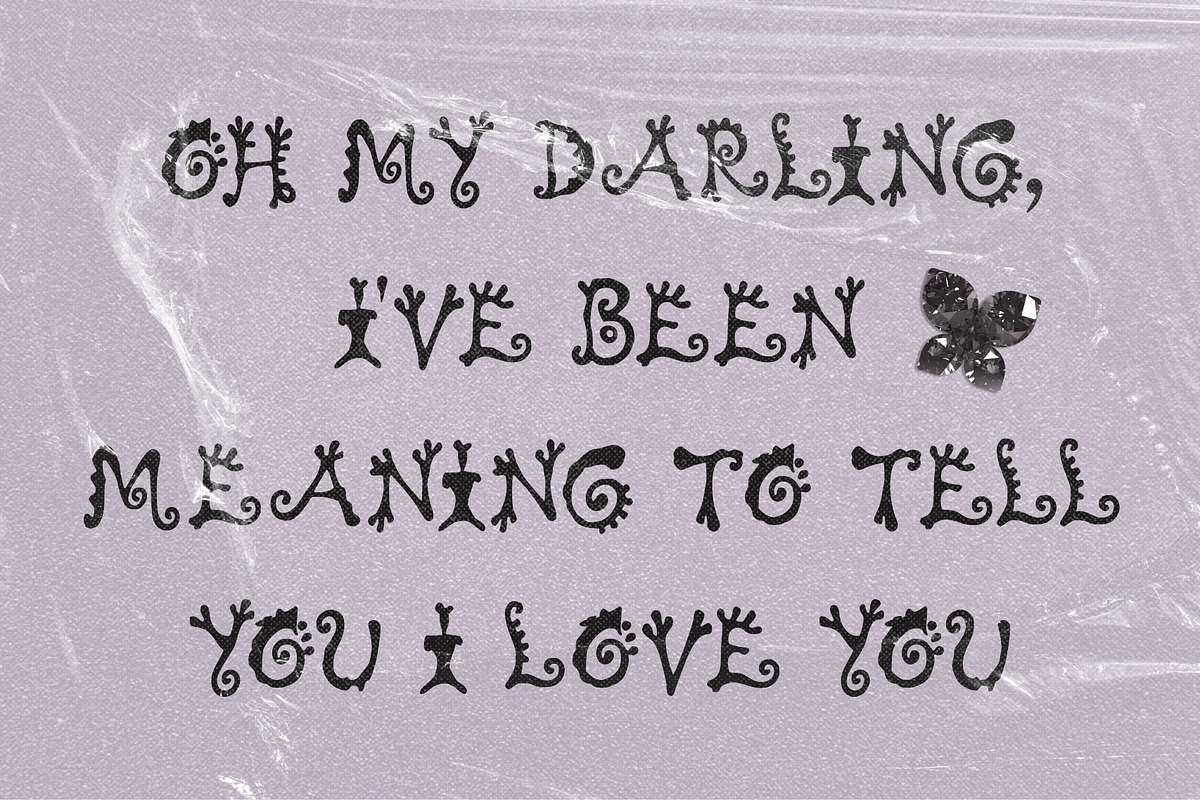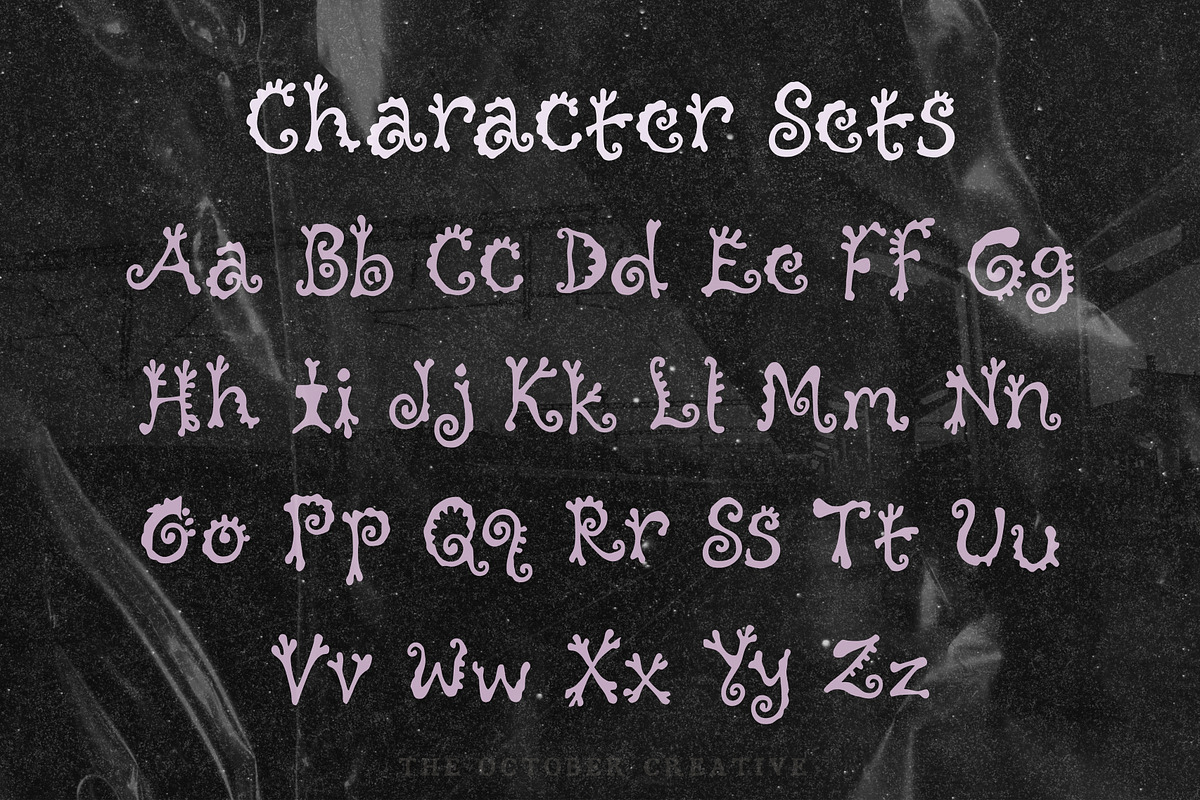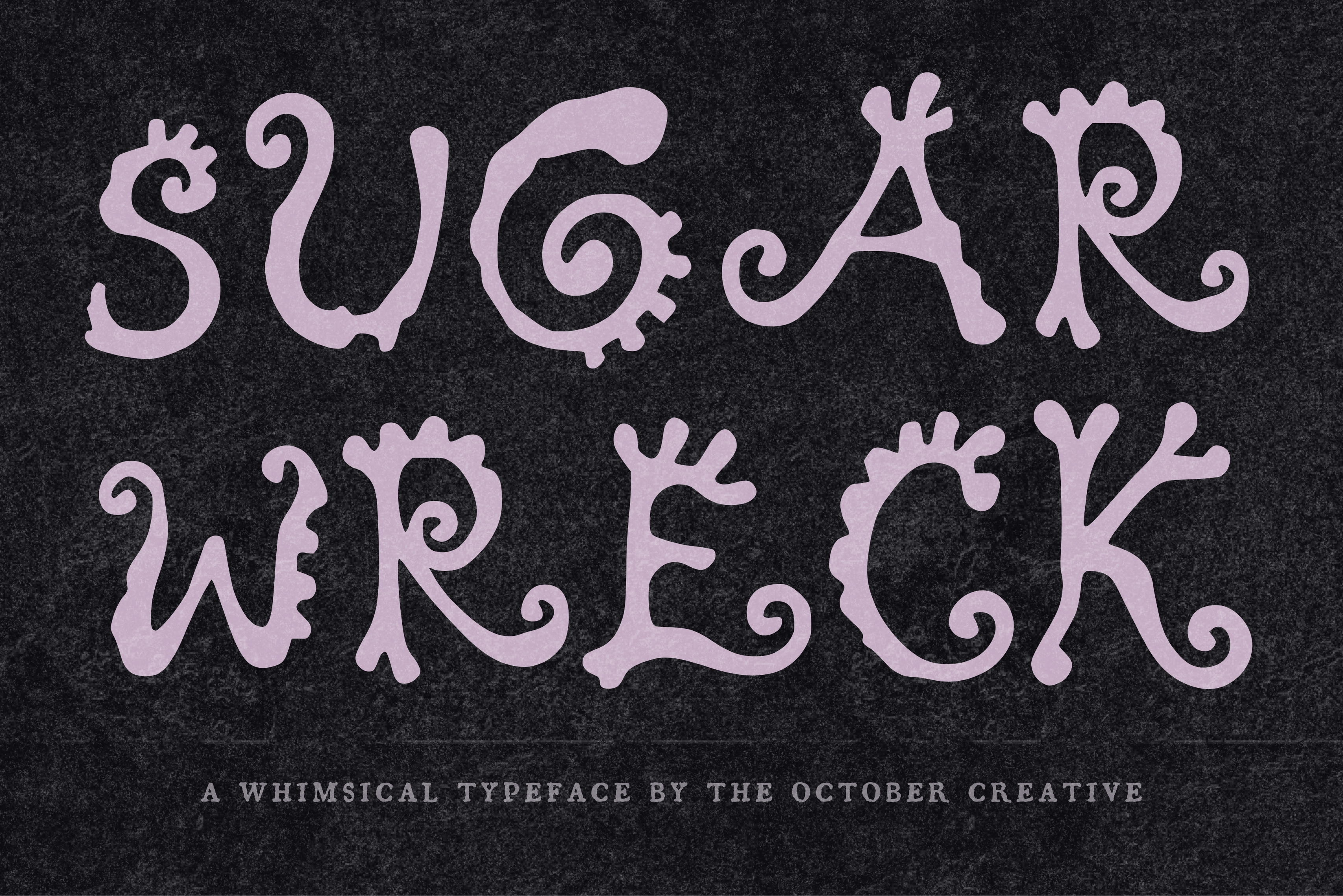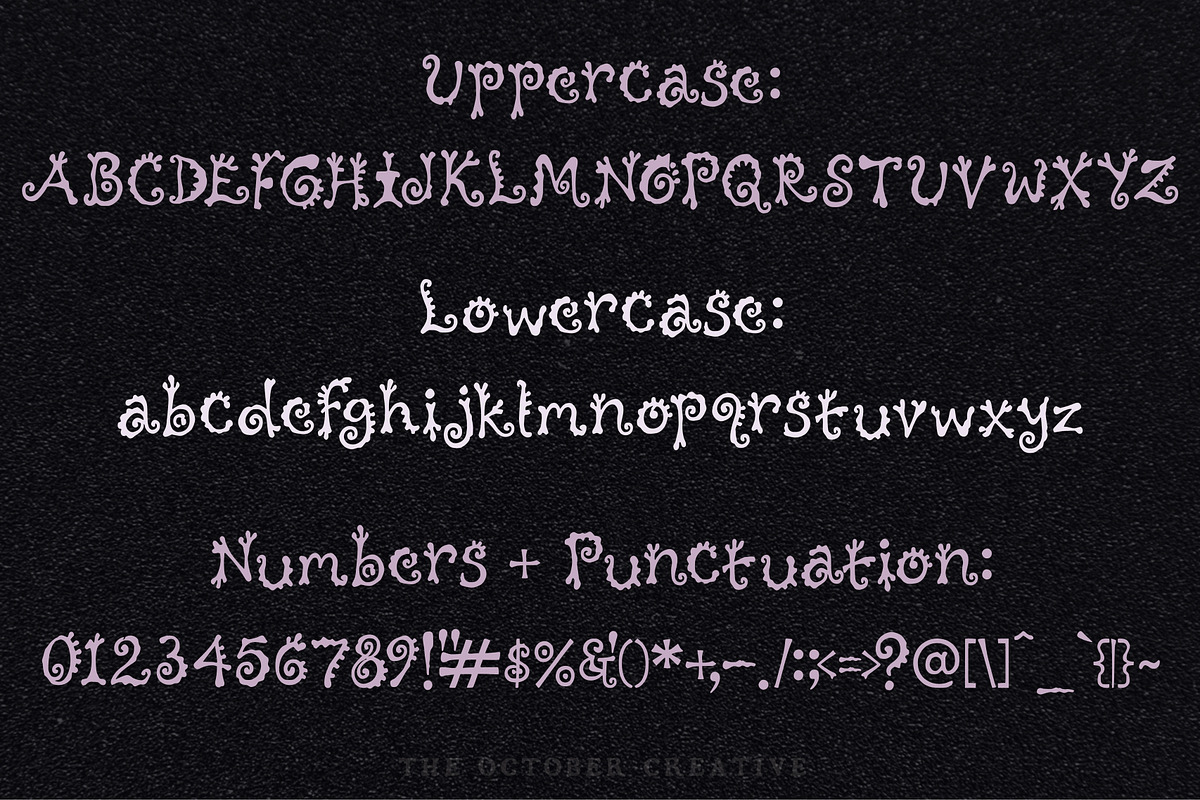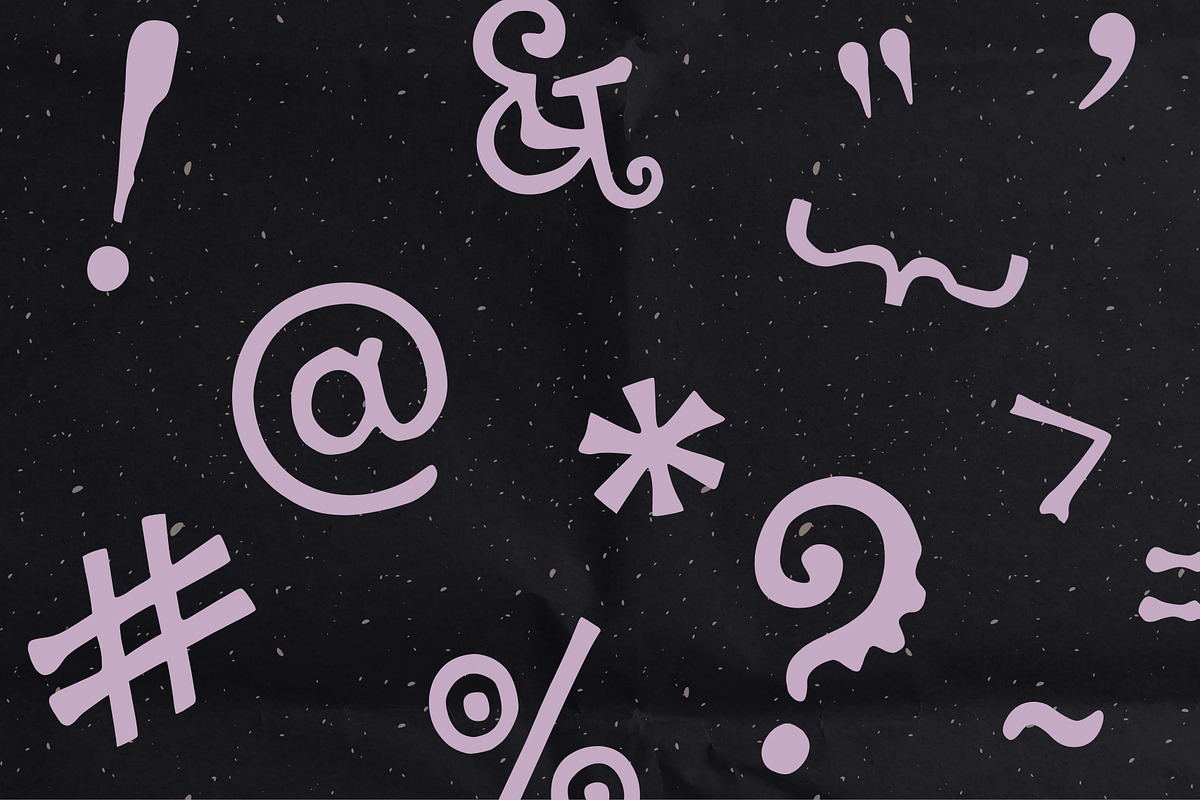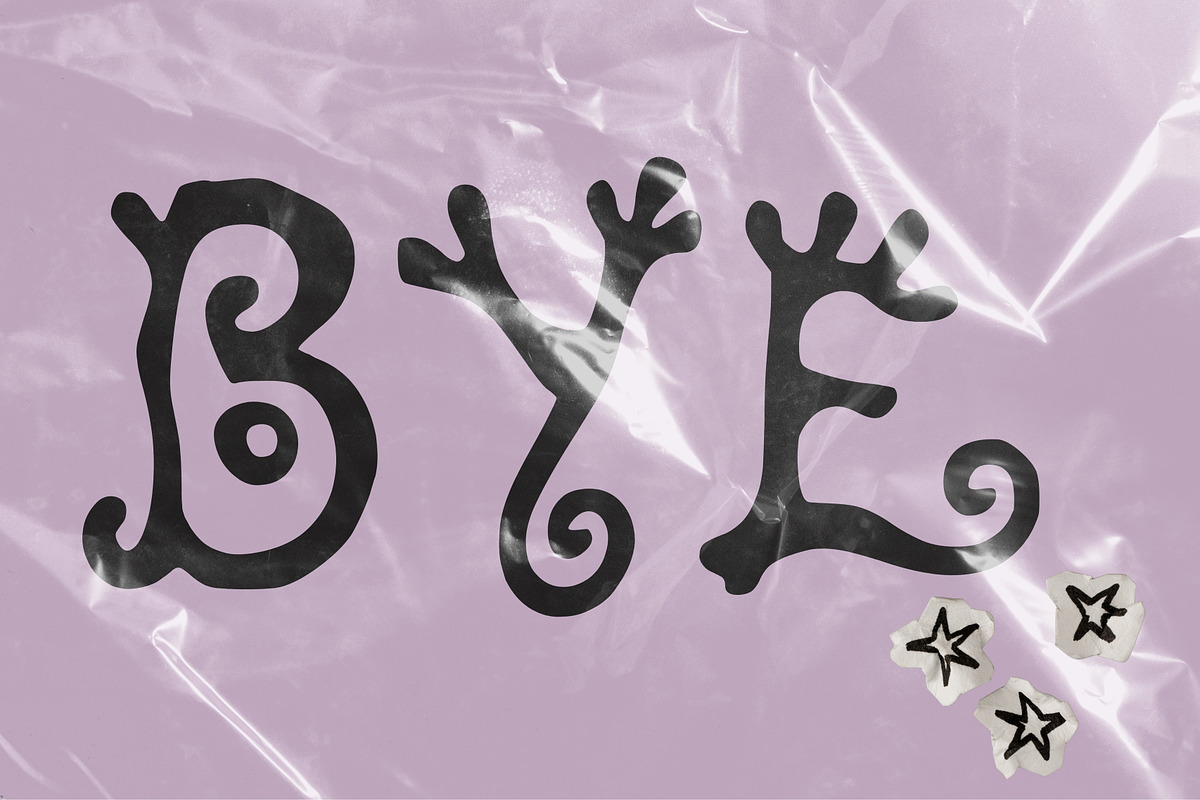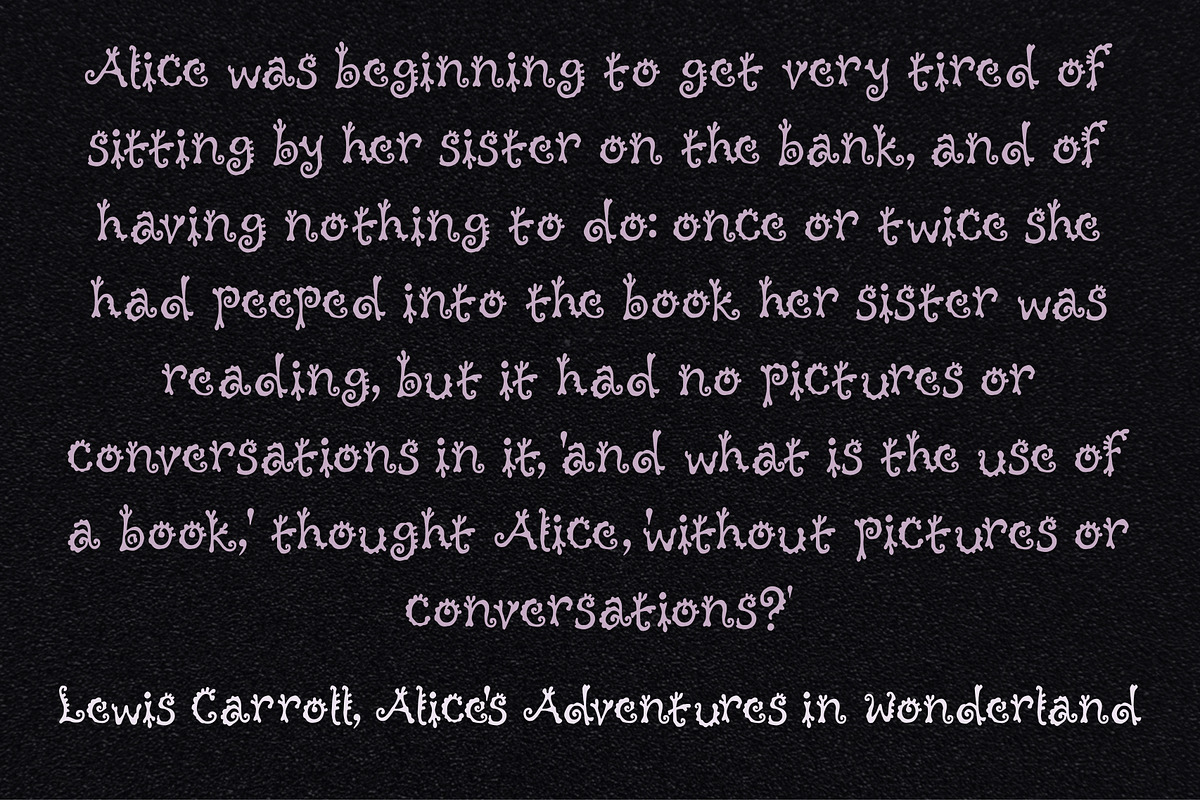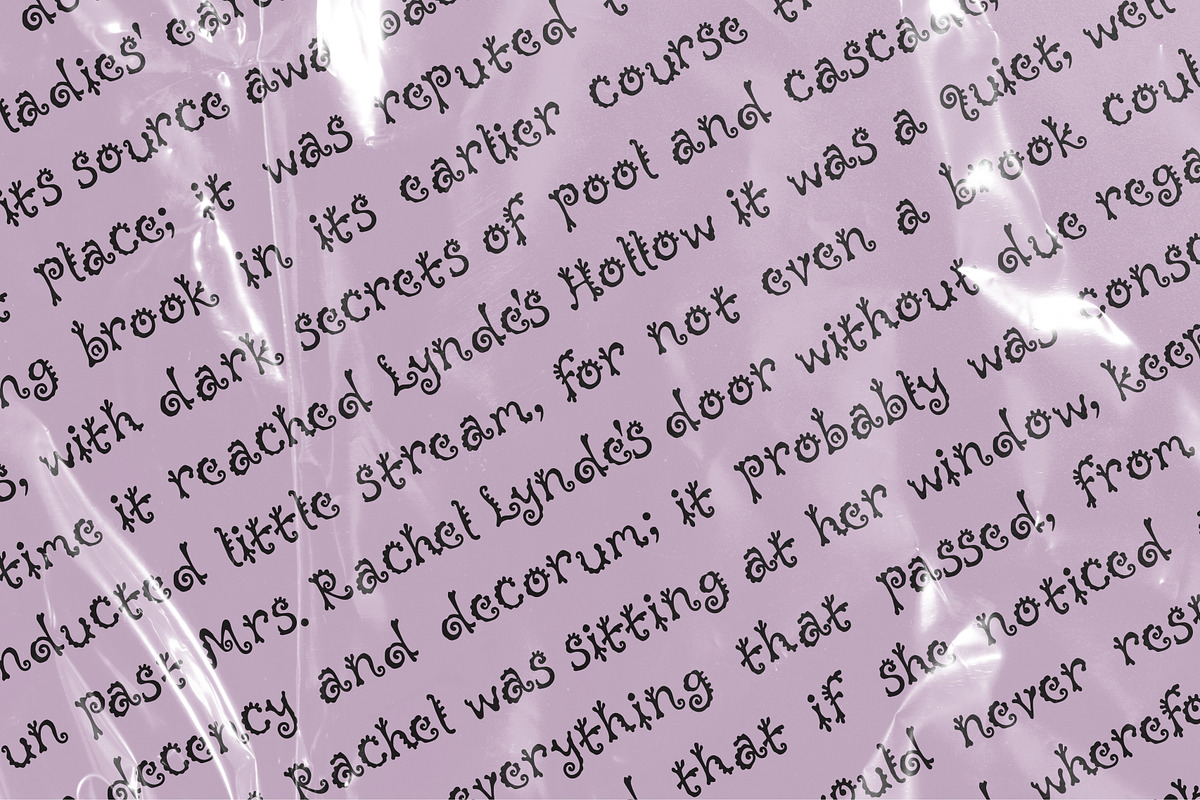
Sugarwreck Thorny Display Font
Sugarwreck is a thorny display font with bold rounded letters and tiny thorns sprouting off the strokes, sweet with something sharp in it. It fits bakery logos, candy shop signage, dessert menus, and treat packaging.
CHARACTER SET
Uppercase A to Z, lowercase a to z, numerals 0 to 9, and every standard keyboard punctuation mark and symbol: ! " # $ % & ' ( ) * + , - . / : ; < = > ? @ [ \ ] ^ _ ` { | } \~
Curly quotes and apostrophes (‘ ’ “ ”), en and em dashes, an ellipsis, and a bullet.
Accented letters: À Á Â Ã Ä Å Ç È É Ê Ë Ì Í Î Ï Ñ Ò Ó Ô Õ Ö Ù Ú Û Ü and their lowercase forms.
LANGUAGES SUPPORTED
English, plus the accented vowels, Ñ, and Ç used in names and everyday words in Spanish, French, Italian, Portuguese, German, and Dutch. Not included: ß, Æ, Ø, Œ, and the upside-down ¿ and ¡.
SPECIAL CHARACTERS